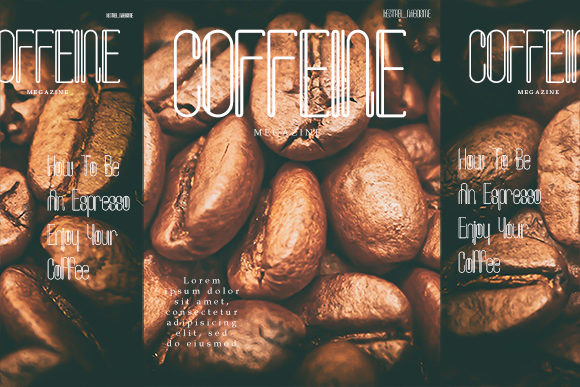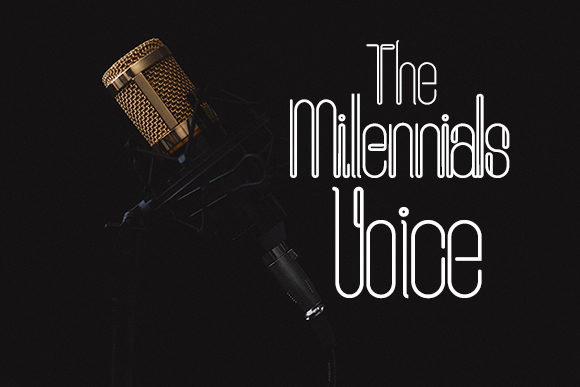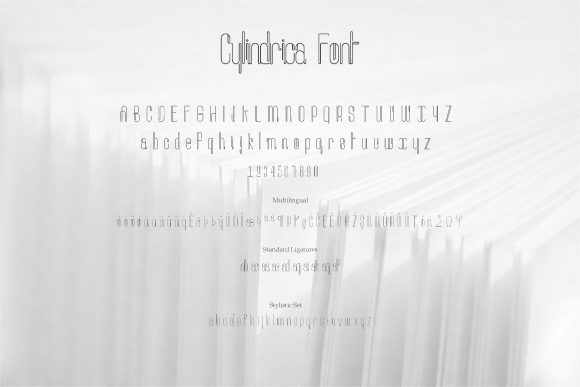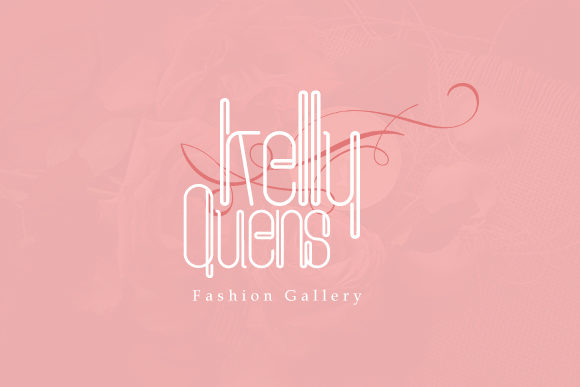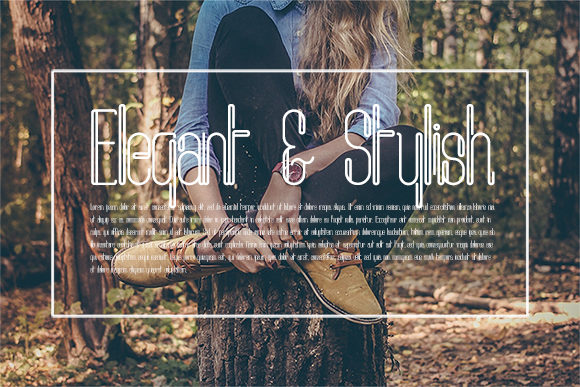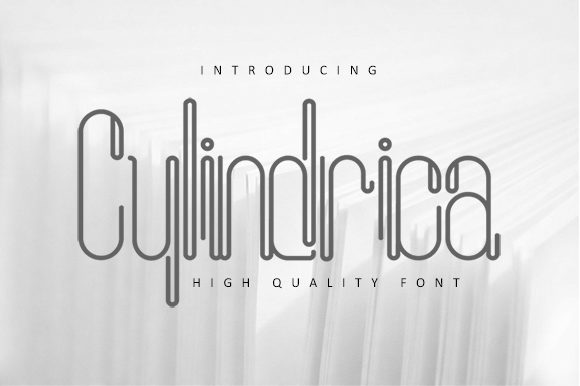
Cylindrica Font: Elevate Your Design with a Modern and Clean Sans Serif
In the world of typography, fonts play a crucial role in conveying the message and aesthetic of a design. For designers and crafters looking to add a touch of sophistication and modernity to their projects, the Cylindrica font is an excellent choice. This modern and clean sans serif font is perfectly suited for adding a smart feel to your next design idea.
What is Cylindrica Font?
Cylindrica is a sans serif font that boasts a clean and modern design. Its sleek lines and simple shapes make it an ideal choice for designers who want to create a professional and contemporary look. The font’s minimalist approach ensures that it can be used in a variety of design projects, from logos and branding to headings and body text.
Key Features of Cylindrica Font
- Modern and Clean Design: Cylindrica’s design is characterized by its simplicity and elegance, making it perfect for modern designs.
- Sans Serif: The font’s sans serif design ensures that it remains clean and uncluttered, even at smaller font sizes.
- High Versatility: Cylindrica can be used in a wide range of design projects, from digital designs to print materials.
- Easy to Read: The font’s clear and simple design makes it easy to read, even for extended periods.
Benefits of Using Cylindrica Font
Using Cylindrica font in your design projects offers several benefits. Its modern and clean design ensures that your project looks professional and contemporary. The font’s versatility means that it can be used in a variety of design projects, from logos and branding to websites and social media graphics.
Additionally, Cylindrica’s ease of readability makes it an excellent choice for body text, ensuring that your audience can easily read and understand your message. The font’s simplicity also ensures that it can be easily paired with other fonts, making it a great addition to any design project.
Who Can Benefit from Cylindrica Font?
Cylindrica font is an excellent choice for a wide range of designers and crafters, including:
- Graphic Designers: Cylindrica’s modern and clean design makes it perfect for graphic designers looking to create professional and contemporary designs.
- Web Designers: The font’s clean design and ease of readability make it an excellent choice for web designers looking to create user-friendly and modern websites.
- Digital Artists: Cylindrica’s versatility and modern design make it a great choice for digital artists looking to add a touch of sophistication to their work.
- Crafters: The font’s simplicity and elegance make it an excellent choice for crafters looking to add a professional touch to their handmade projects.
Tips for Using Cylindrica Font
To get the most out of Cylindrica font, here are a few tips:
- Pair with Other Fonts: Cylindrica’s simplicity makes it easy to pair with other fonts. Experiment with different font combinations to create a unique look.
- Use in Headings and Body Text: Cylindrica’s ease of readability makes it perfect for both headings and body text.
- Experiment with Font Sizes: Cylindrica’s clean design ensures that it remains legible even at smaller font sizes. Experiment with different font sizes to create visual interest.
In conclusion, Cylindrica font is a modern and clean sans serif font that is perfectly suited for adding a smart feel to your next design idea. Its versatility, ease of readability, and simplicity make it an excellent choice for a wide range of design projects. Whether you’re a graphic designer, web designer, digital artist, or crafter, Cylindrica font is a great addition to your design toolkit.